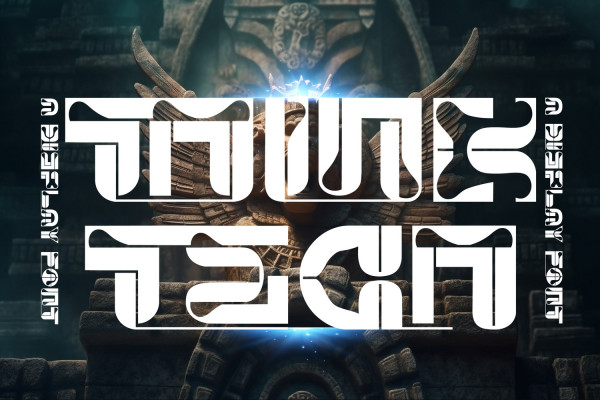
Think Tech Font
Think Tech Font is the epitome of modernity and technology in font form. With its bold and futuristic design that convey a sense of precision and efficiency. Modern font with edge, geometric corners, perfect for many project: fashion, magazines, logo, branding, photography, quotes, blog header, poster, advertisements, postcard, book, websites, etc.
Think Tech was built with OpenType features and includes 100 ligatures, alternate, numbers, punctuation, and it also supports other languages.
AC AD AL AN AR AS AT AU AV BE CA CE CH CO CT DE DI EA EC ED EE EL EM EN EP ER ES ET FE FO FR GE HA HE HI HO IE IC IL IN IO IR IS IT JU KE LA LE LI LL LO LY MA ME MI NC ND NE NG NO NT NS OC OF OM ON OO OP OR OT OU OW PA PR RA RD RE RI RO RS RT SE SH SI SO SS ST TA TE TH TI TO TR TT UM UN UR VE WI WO